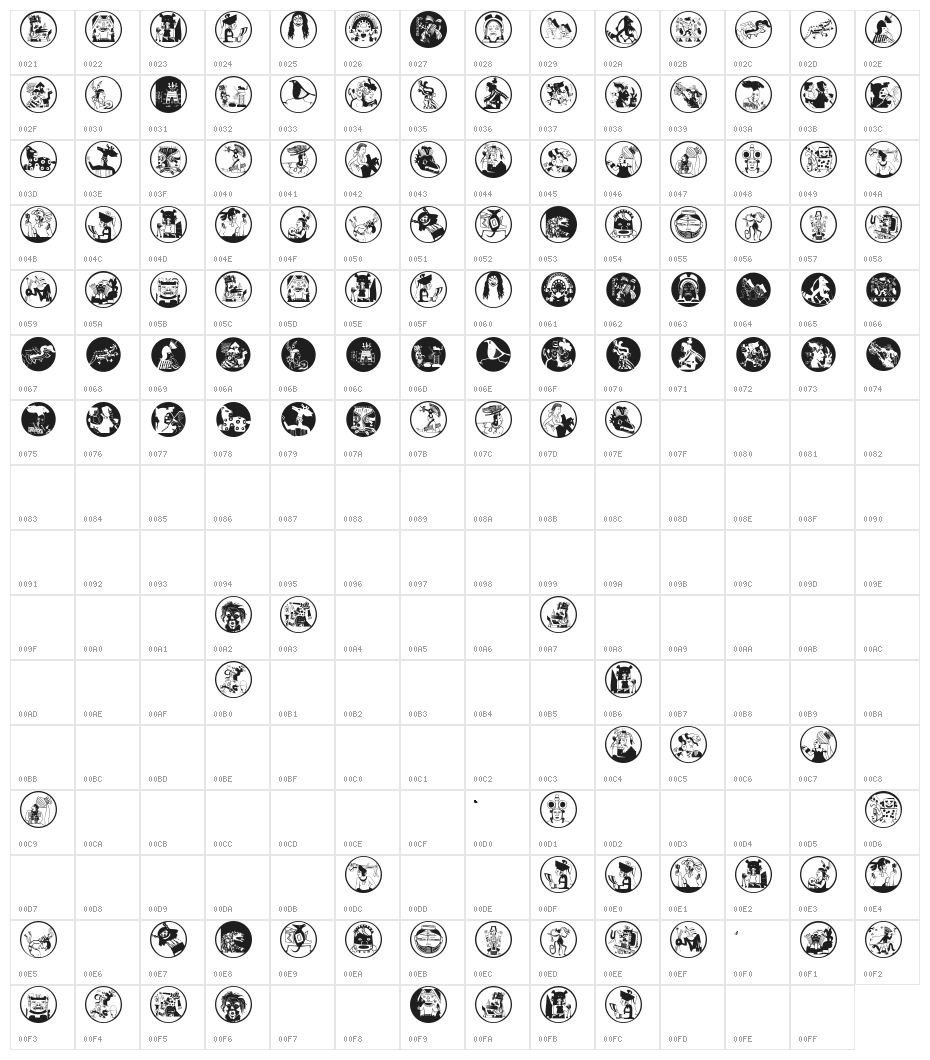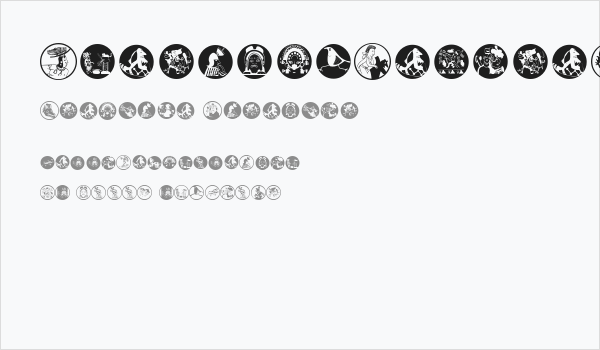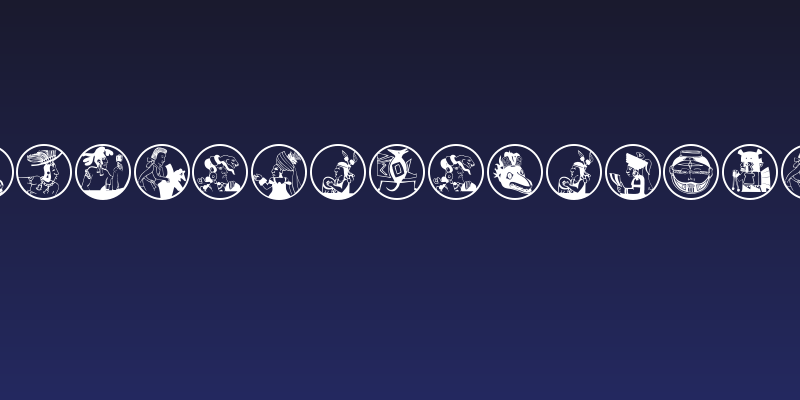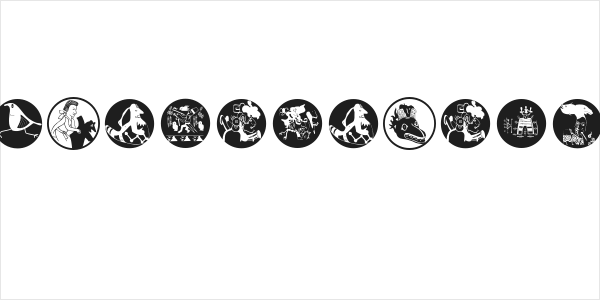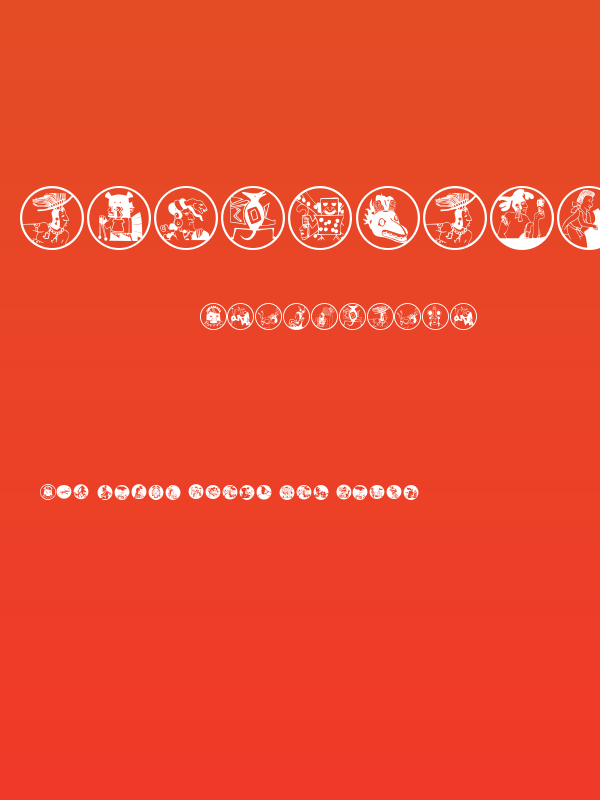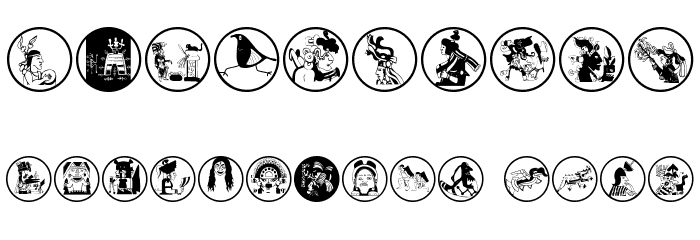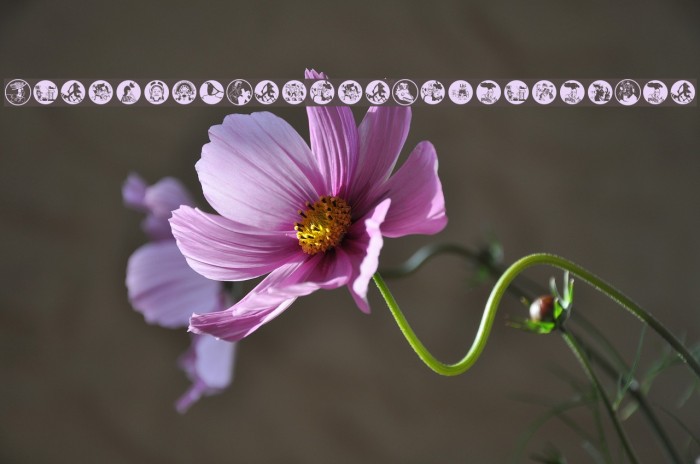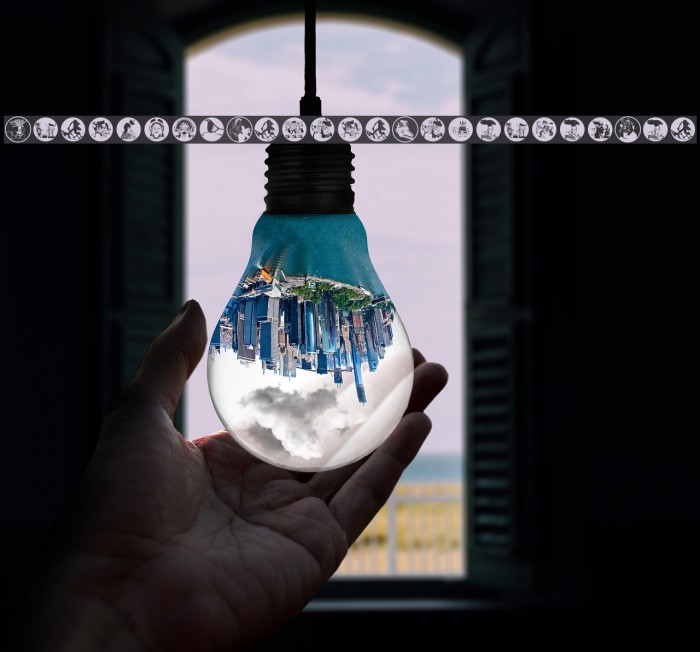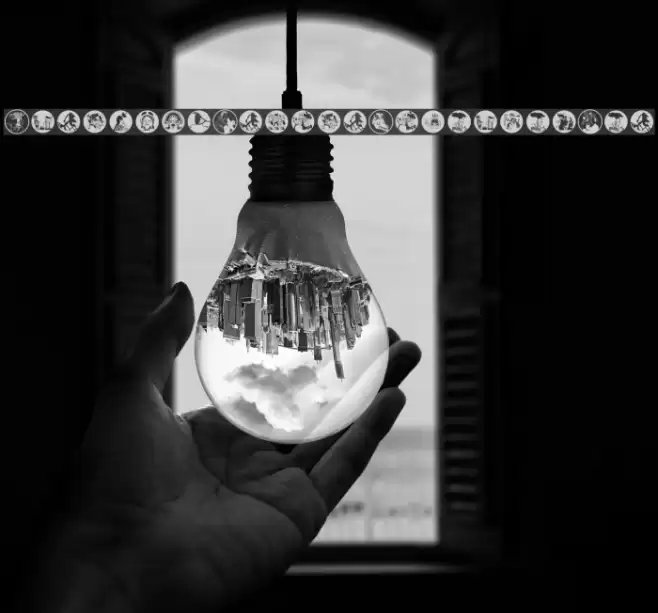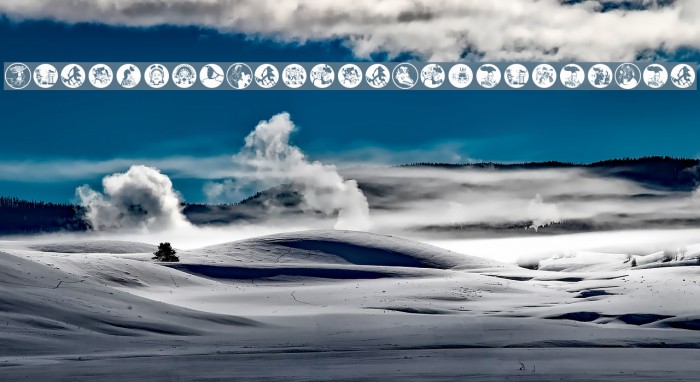
AmericanBeforeColumbusDue Font
AmericanBeforeColumbusDue Description
A decorative display font featuring unique glyphs, each represented by a circular icon with intricate, illustrative black-and-white artwork inspired by pre-Columbian American cultures. Each character is highly stylized, with no traditional letterforms, making it more of a pictographic or dingbat set than a standard typeface.
| Overall Style | Decorative, Cultural, Illustrative |
| Use Case | Icons, Decorative elements, Themed graphics |
| Proposed Projects | Educational posters, museum exhibits, themed event graphics, cultural presentations, decorative borders. |